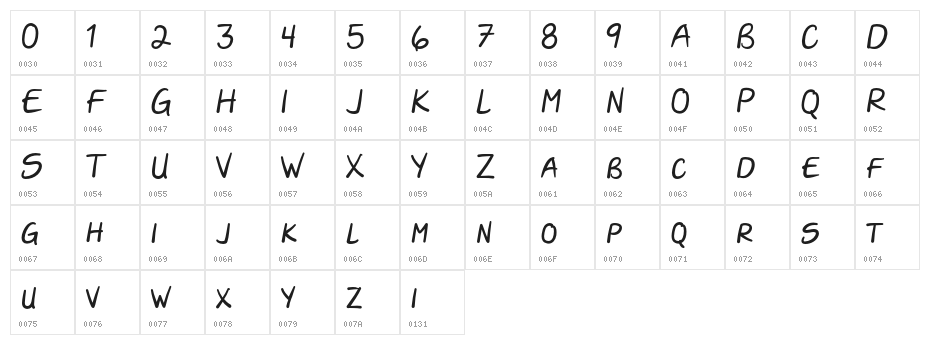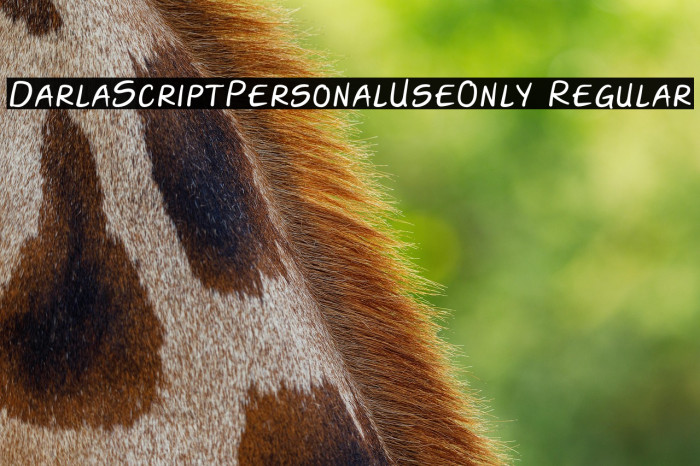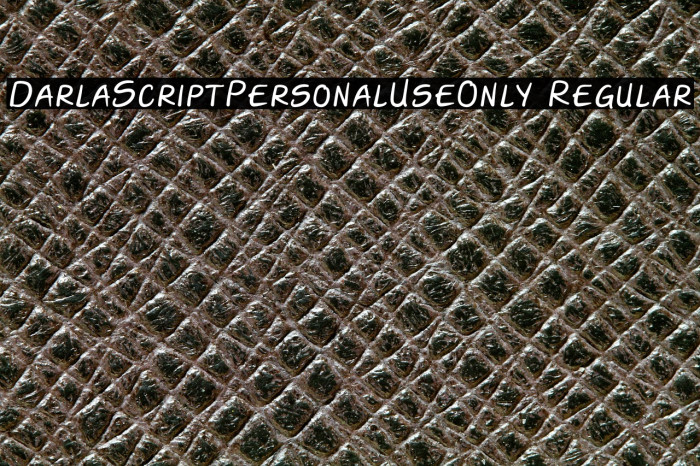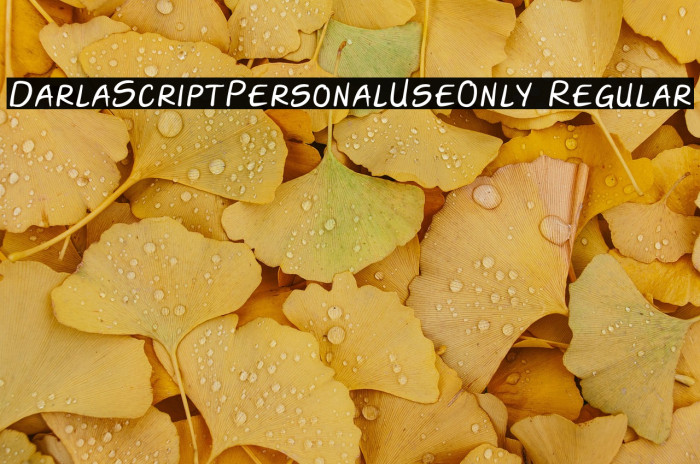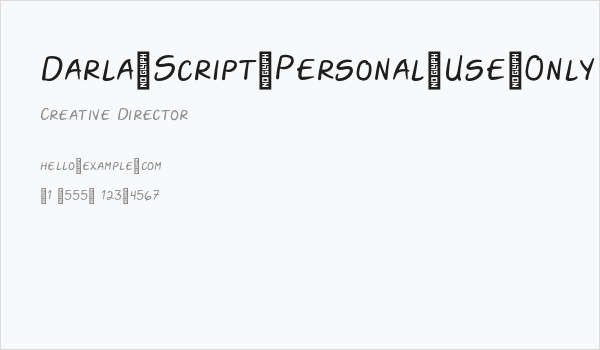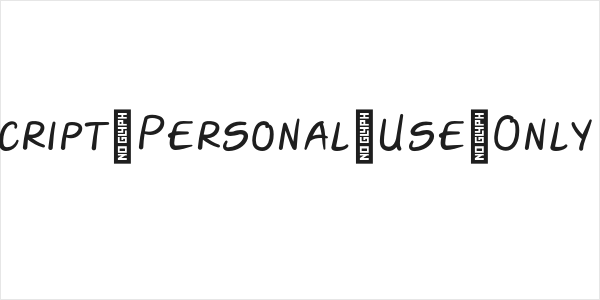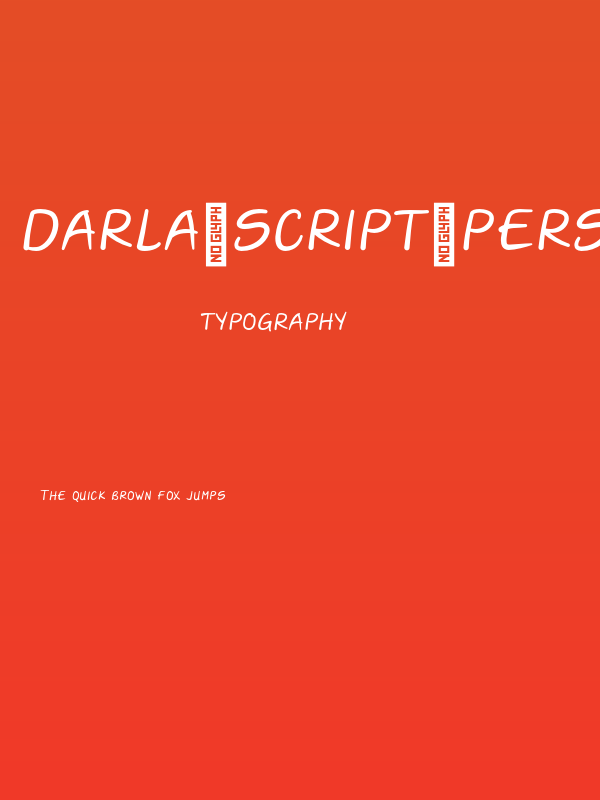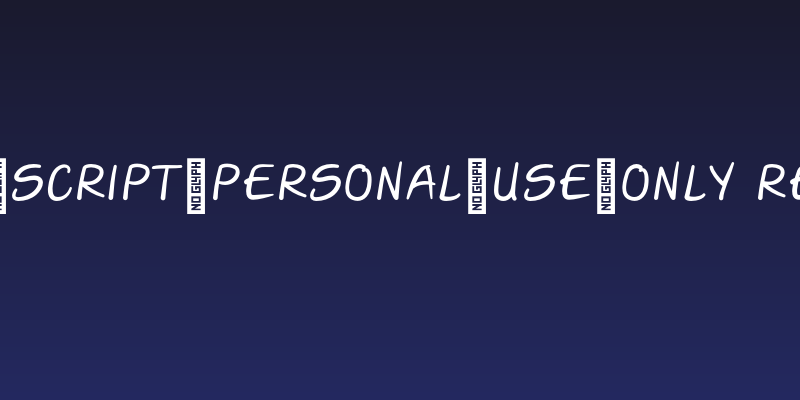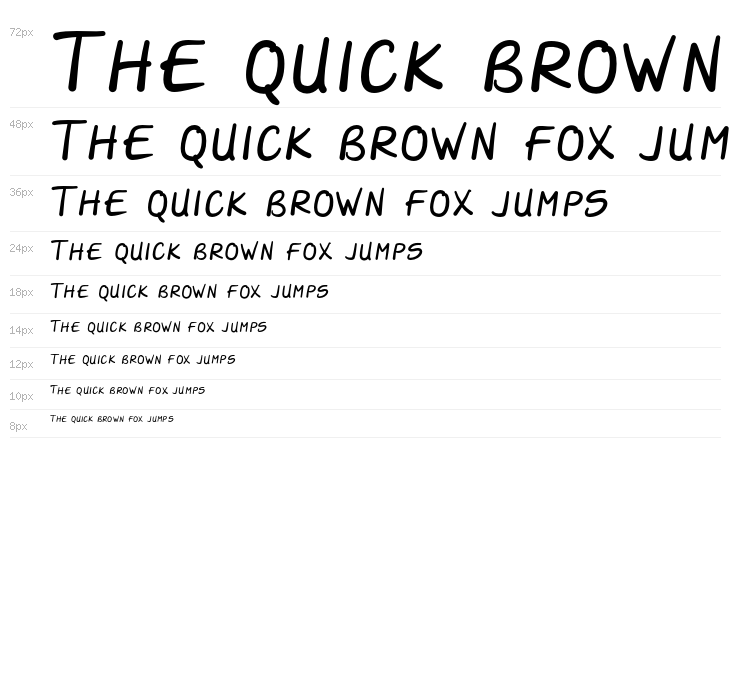
Darla-Script-Personal-Use-Only Regular Font
Darla-Script-Personal-Use-Only Regular Description
This font features a smooth, flowing script style that mimics natural handwriting. The letters are slightly slanted, giving it a casual yet elegant appearance. The strokes are consistent in width, providing a uniform look across all characters. The uppercase letters are distinct and easy to read, while the lowercase letters maintain a cohesive flow. The numerals are clear and well-proportioned, making them suitable for various applications. Overall, the font exudes a friendly and approachable vibe, perfect for personal and informal projects.
| Overall Style | Casual |
| Use Case | Headlines, Personal projects, Informal communications |
| Proposed Projects | Ideal for greeting cards, invitations, personal branding, and social media graphics. |